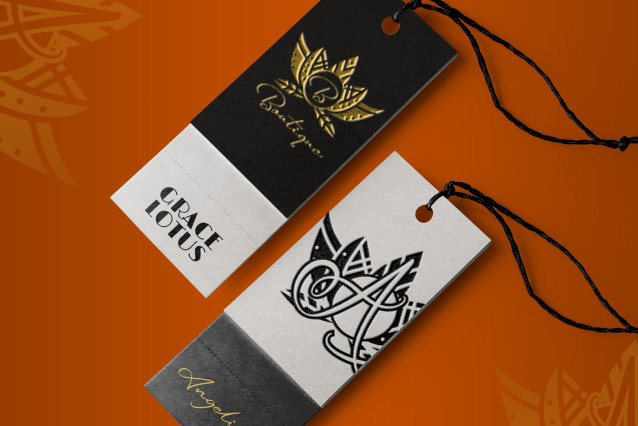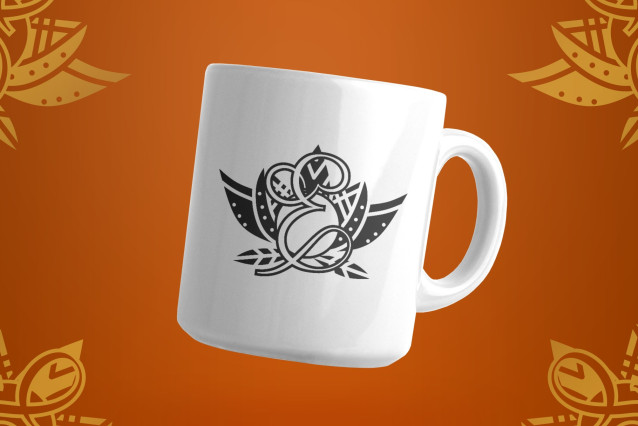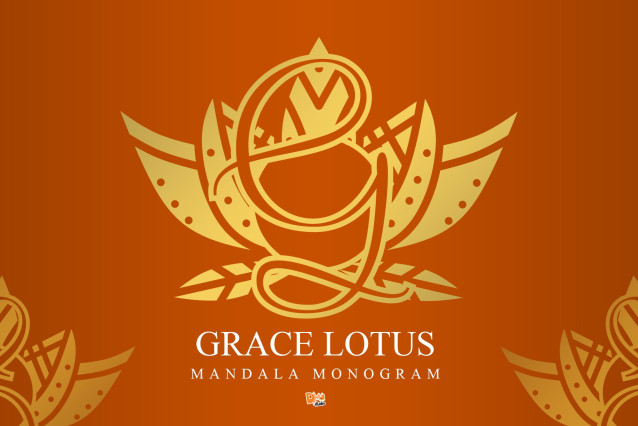
Grace Lotus Mandala Monogram Font
Grace Lotus Mandala Monogram is a serene and elegant typeface that blends the spiritual symbolism of the lotus flower with the beauty of mandala-inspired design. Each letter is delicately adorned with symmetrical floral details, making it a perfect choice for wedding stationery, spa branding, spiritual projects, and decorative art.